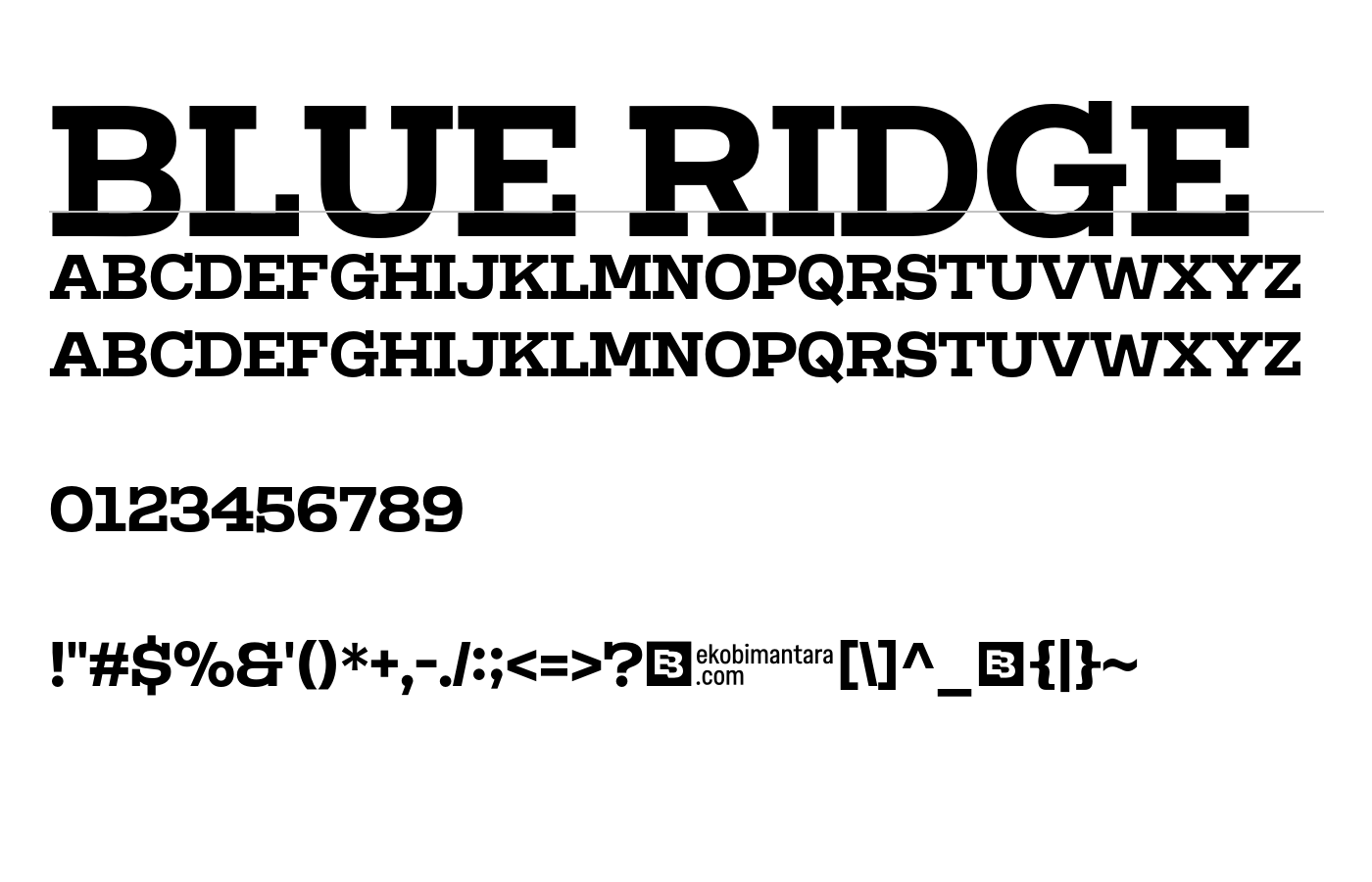
Blue Ridge is a bold, slab serif font characterized by its strong, geometric shapes and sturdy, bracketed serifs, giving it a solid and confident appearance. Its high contrast strokes, tight spacing, and all-caps feel make it ideal for impactful headlines, logos, and branding where a vintage yet robust style is desired. This font works well for projects seeking a classic, authoritative tone with a touch of rugged charm.
BLUE RIDGE Font
About BLUE RIDGE Font